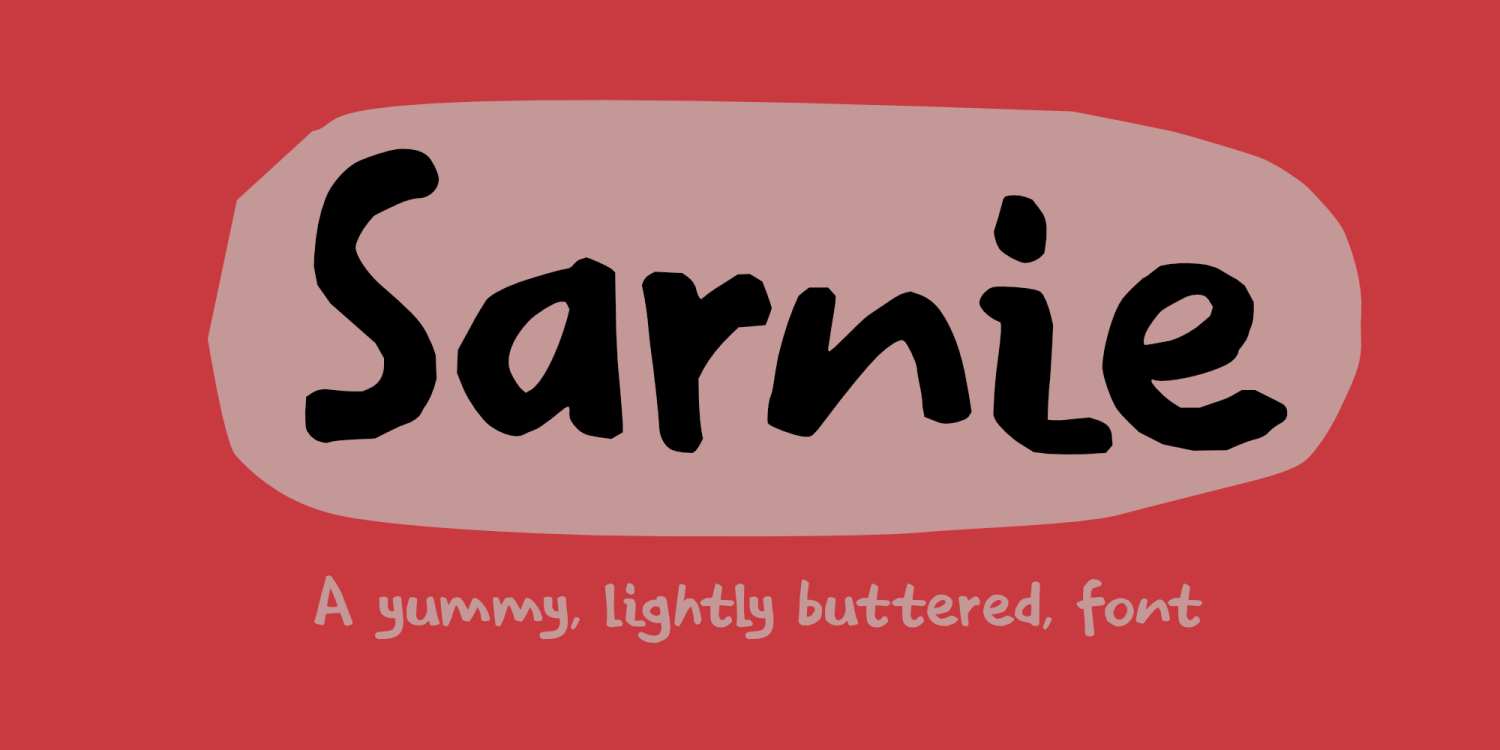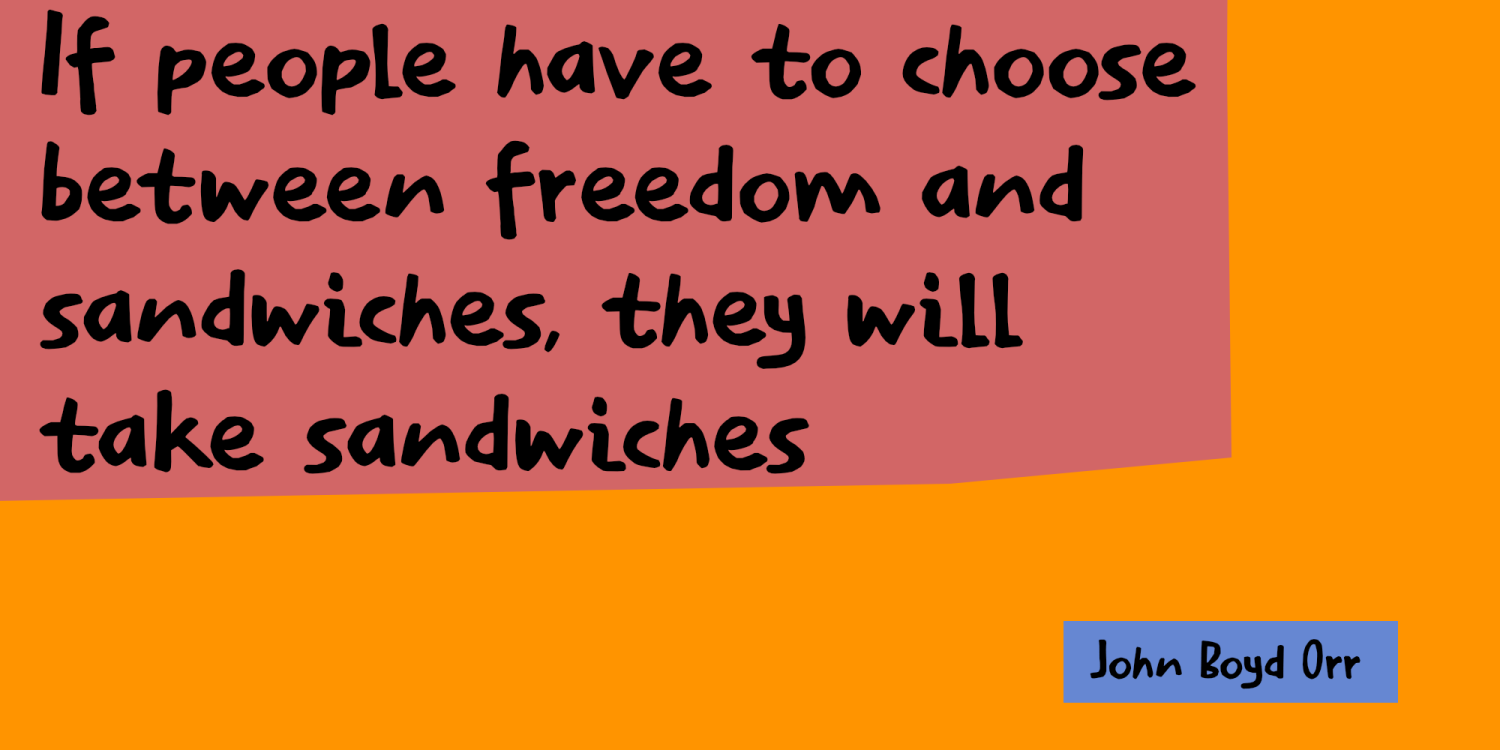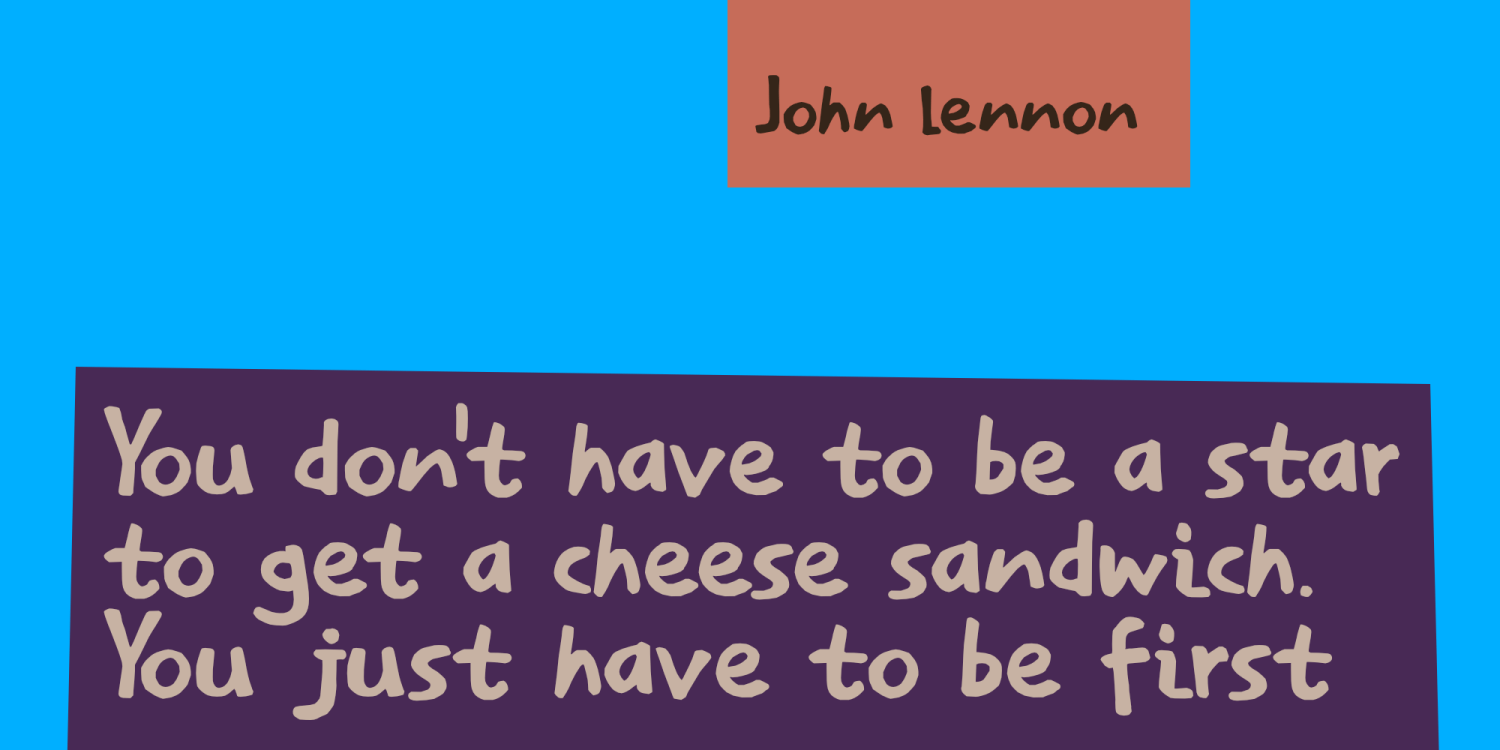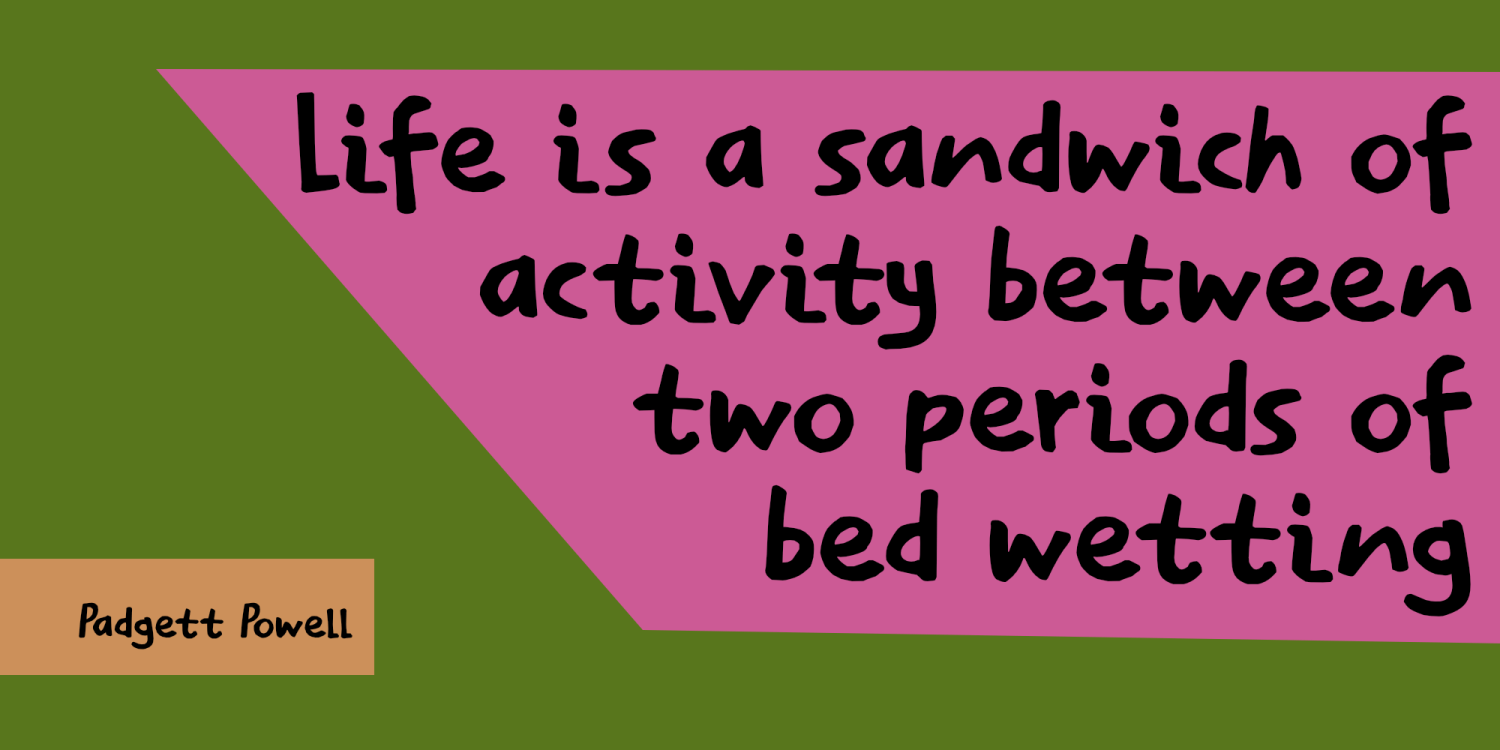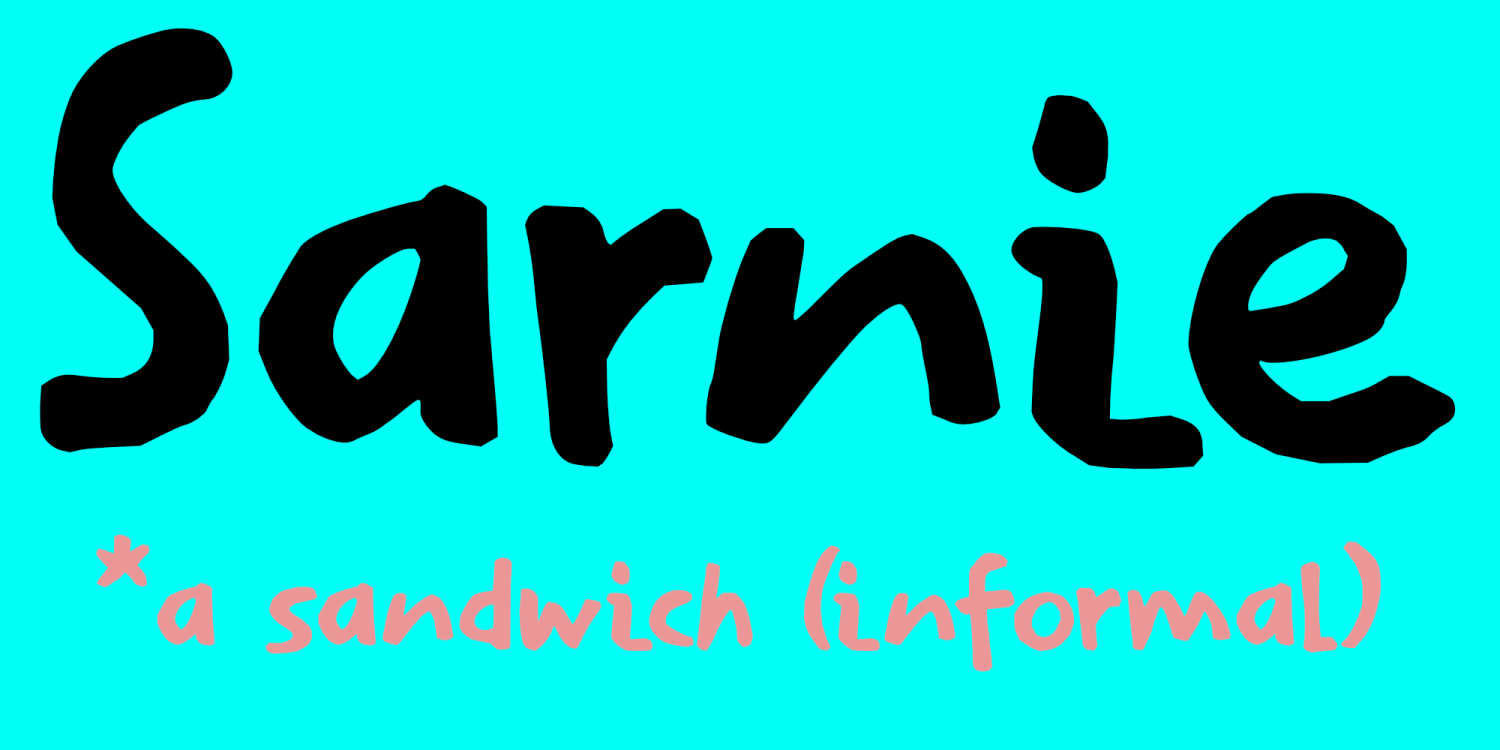
Sarnie
I love British slang. It is witty, a bit obscene at times and almost always conveys the message!
Sarnie means sandwich. I was making myself one when I finished this font.
Sarnie is a handmade font; I used a Sharpie pen to draw the glyphs.